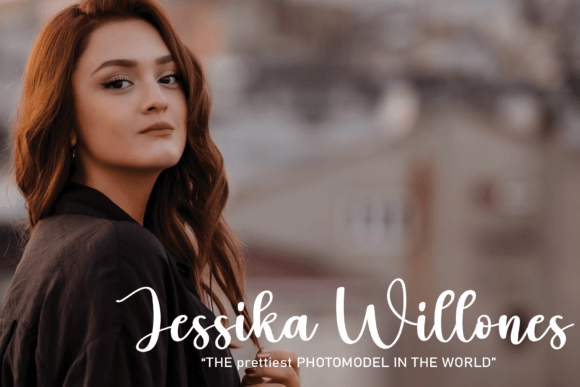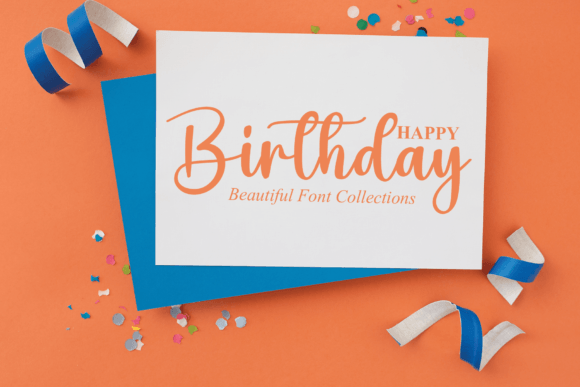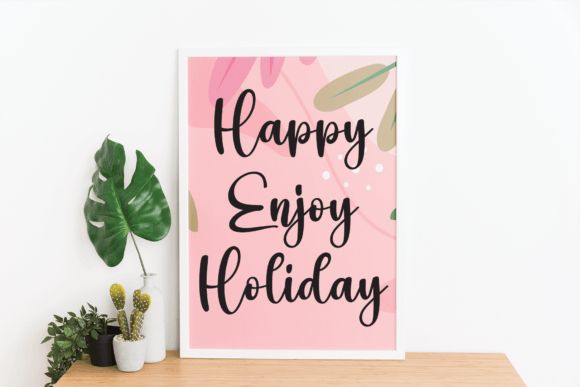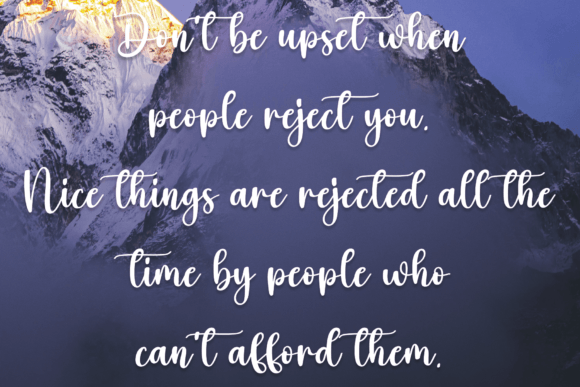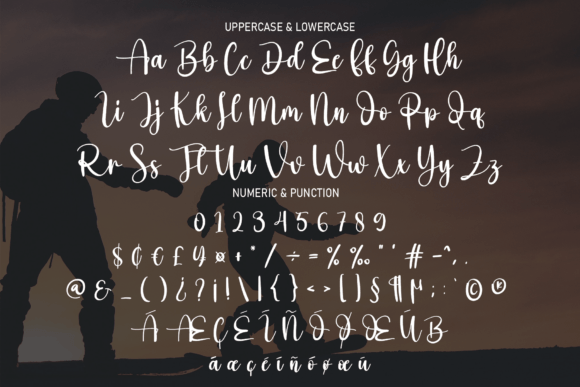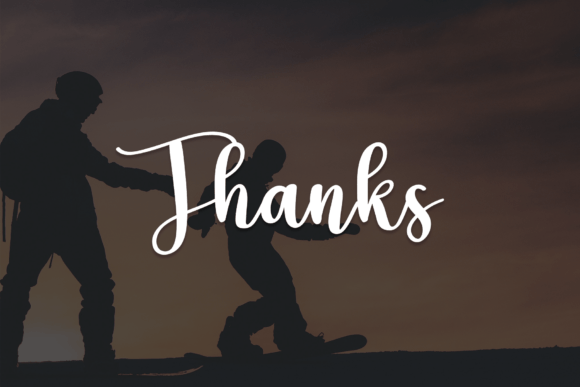
Activity Font
About Activity Font
“Activity” is a delightful and cursive handwritten font, exuding sweetness and charm. This gentle font is designed to enhance a variety of design ideas, adding a joyful and romantic touch to each project it graces. Its versatility makes it perfectly fit for an array of creative applications, including branding, logos, wedding materials, greeting cards, fashion-related projects, lookbooks, marketing promotions, or any instance where you want to achieve a fancy, elegant, yet still casual aesthetic.
The cursive nature of “Activity” adds a flowing and graceful quality to your text, creating a sense of sophistication and fluidity. This makes it particularly well-suited for projects that demand an elegant and romantic touch, such as wedding invitations or fashion-related branding.
Imagine “Activity” elevating your branding materials, giving them a touch of casual elegance. Picture it on greeting cards, where its sweet and cursive style enhances the sentiment of your messages. Envision this font being used in a lookbook or fashion promotion, where it adds a stylish and romantic flair.
Its versatility shines through, making it suitable for a wide range of contexts where a balance between fancy elegance and casual charm is desired. “Activity” becomes more than just a font; it becomes a creative companion that brings a joyful and romantic atmosphere to your designs.
In summary, “Activity” is the perfect choice for those seeking a sweet and cursive handwritten font that effortlessly adds a touch of joy and romance to diverse design projects. Let it be the elegant yet casual element that enhances your branding, marketing, or any creative endeavor, creating designs that are both sophisticated and charming.